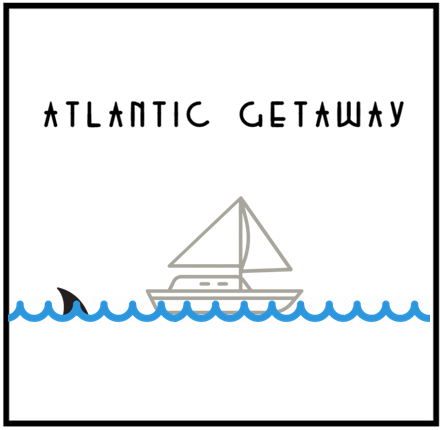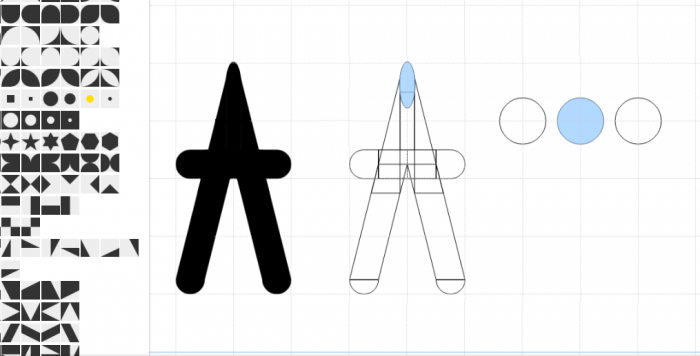
You're welcome. BTW, I'm looking for a way to improve your top of the "A"... I'll let you know if I can find a better solution than yours. I really enjoy seeing this deco style of yours, and imagine amazing things with it and how far you can take it... Don't let.
Nice rounded touch.
You're welcome. BTW, I'm looking for a way to improve your top of the "A"... I'll let you know if I can find a better solution than yours. I really enjoy seeing this deco style of yours, and imagine amazing things with it and how far you can take it... Don't let.
so glad to know that, the "A" was a fun challenge to accomplish
this is great, maybe make the cross bar on the A low like it is on the E
tried lowering the crossbar, but found it look a little too akin to an earlier font
This is the best I could get for the top of the A. Hope it helps.
this is super helpful, the letter has been fixed